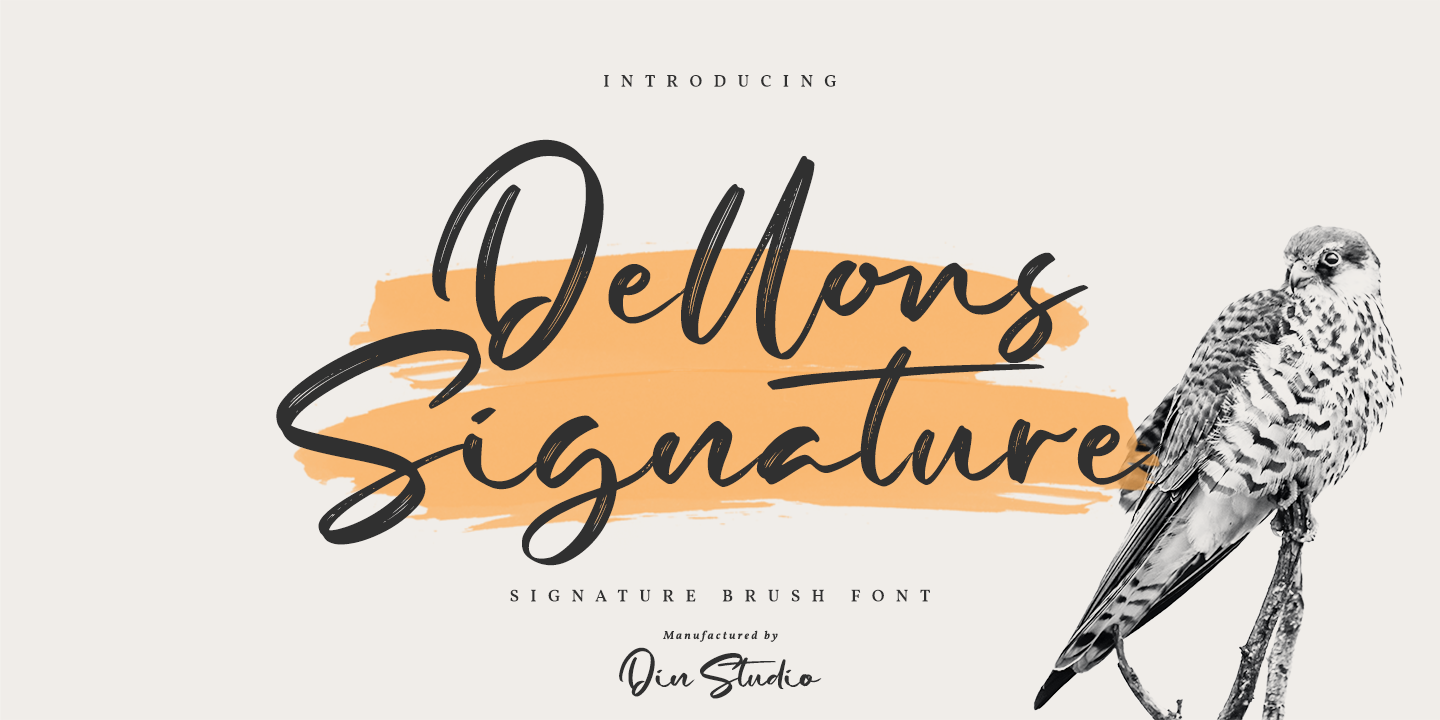
Dellons Signature Free Download
Dellons Signature Font Free Download
The Dellons Signature Font Free Download is an exquisite and personal script typeface, making it an excellent choice for designs that demand sophistication, bespoke elegance, and a genuine handcrafted touch. This beautiful font is perfectly suited for personal branding, wedding invitations, photography watermarks, fashion blogs, luxury product packaging, and professional correspondence. Imagine it adding a refined flourish to a high-end designer's logo, providing a heartfelt yet elegant touch to a custom-made gift card, or lending an air of personalized luxury to an exclusive event's digital invitation. Its fluid strokes and natural connections ensure your message is delivered with warmth and an undeniable sense of refined artistry.
What makes Dellons Signature Font truly exciting is its ability to instantly infuse designs with a sense of bespoke quality and human authenticity. It's not just a script font; it embodies an organic flow and a delicate precision that makes it incredibly appealing. The beautiful variations in stroke thickness and the effortless connections between letters mimic genuine handwriting, adding a personal and luxurious feel to any design. Designers will appreciate how easily it brings a sophisticated yet approachable touch to any project, making it ideal for designs that need to feel authentic, elegant, and visually enchanting.
The Dellons Signature Font family typically focuses on its singular, expressive style, as its strength lies in its authentic signature appearance. While you might primarily find a Regular option, its versatility comes from its inherent design and often includes a rich array of swashes, alternates, and ligatures. These additional features allow for extensive customization, enabling designers to create unique and flowing typographic compositions that truly mimic natural handwriting with a refined flair. These focused design elements ensure that the Dellons Signature Font Free Download provides ample creative opportunities to craft genuinely personal and visually captivating designs.